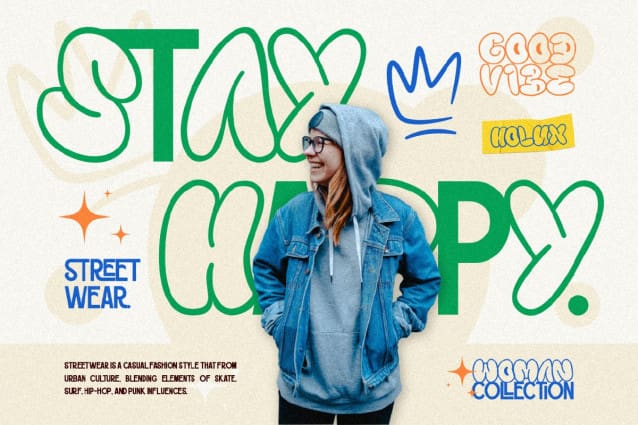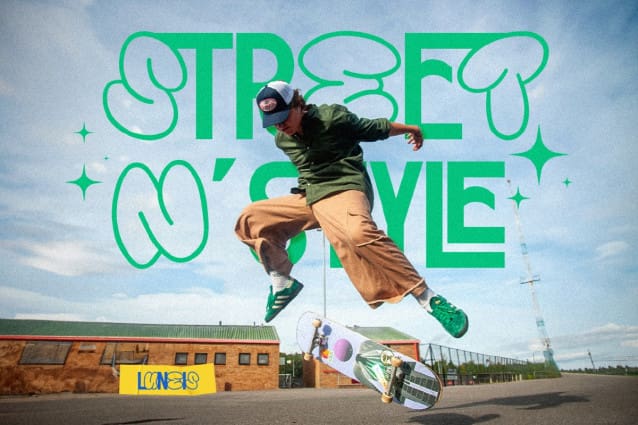
Luneis Bubble Graffiti Font
Luneis Bubble Graffiti Font a hybrid typeface that combining the playful bubble graffiti and the simplicity of sans serif. This blends of this font creating a striking contrast between youthful and simplicity. Bubble graffiti evoking sense of energy and spontaneity. The san serif delivers clean lines and contemporary feel, emphasizing clarity and sophistication. Together, they celebrate the fusion of street art and design, also make your project stand out because of the visual creativity and textual communication. Ideal for fashion streetwear, merchandise, social media marketing, poster and many more.